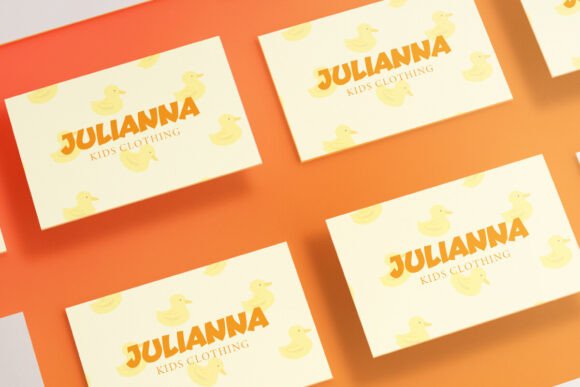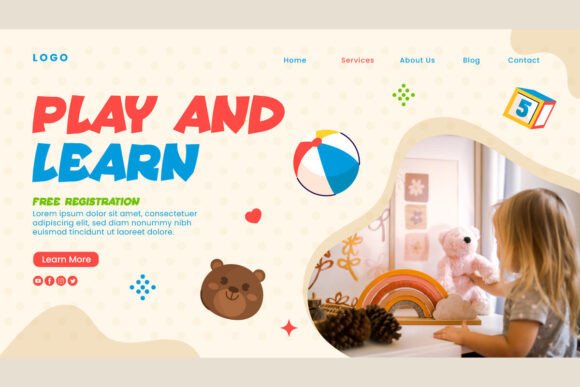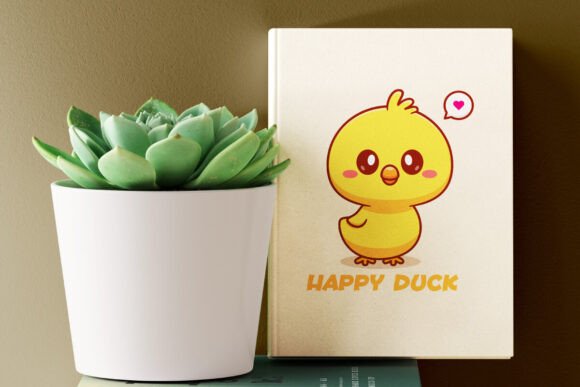
Duck Sound Font
About the Duck Sound Font
The Duck Sound Font offers a perfect balance of form and function for your design needs. Duck Sound Font is a playful, bold yet fun sans serif display font. This font has bold letters with a unique shape so it looks attractive and fun. It will be perfect for any designs, such as brand image, cover, custom design, invitation, label, marketing material, menu, poster, product packaging, quote, signage, stationery, web, and many more!
Duck Sound Font’s playful boldness makes it ideal for headlines, posters, and branding projects requiring a strong visual impact. It works exceptionally well for packaging design, especially for products targeting a younger demographic or those with a fun, energetic brand identity. However, its weight and unique letterforms make it unsuitable for body text or UI elements where readability is paramount.
Pairing Duck Sound with a clean sans-serif like Open Sans for body copy creates a strong visual hierarchy. For a more sophisticated feel, consider pairing it with a classic serif such as Garamond. Alternatively, a delicate script font could add a touch of elegance to designs using Duck Sound as the main display font.
The overall personality of Duck Sound is energetic and friendly, yet bold and memorable. It’s best suited for brands that want to project a youthful, approachable, and attention-grabbing image.